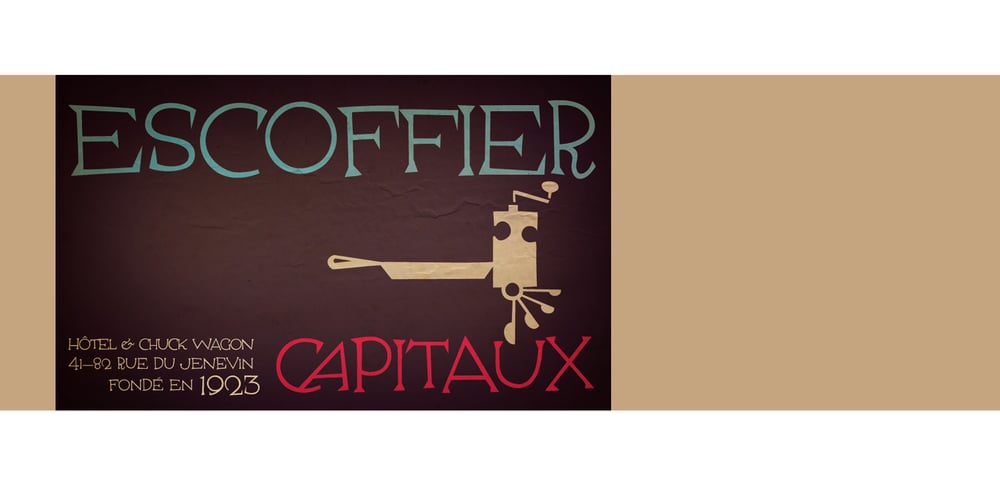
Escoffier Capitaux Font Family was designed by Steve Mehallo and published by steve mehallo. Escoffier Capitaux contains 1 styles and family package options. Escoffier Capitaux is named for culinary legend Auguste Escoffier (1846-35) and inspired by lettering used in vintage French advertising – including the work of commercial illustrator/fashion designer Ernst Dryden (1887-1938) WITH a hearty serving of 1960s ligatures influenced by the work of Herb Lubalin (1918-81) as well as a twist of Claude Garamond (1480ish-1561) AND featuring many alternate characters and extravagant extras, Escoffier Capitaux is enough to fill out your menu, add zest to your cook book, greeting card, resume or just the right amount of sauce to your blog. DINNER IS SERVED No substitutions, please. Minimum service per person. Warning: May taste gamey.